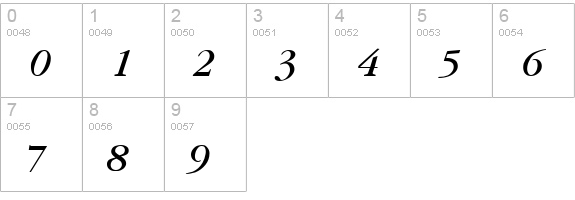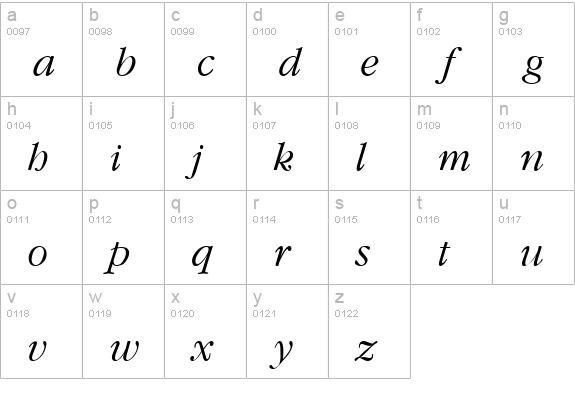
Amethyst Lite Italic Font Details
Amethyst Lite Italic is a distinctive, italic variant in the Amethyst typeface family \xE2\x80\x94 well suited to design and typography projects.
Amethyst Lite Italic font is a stunning typeface that exudes elegance and sophistication. Its delicate italic style adds a touch of refinement to any design project. The flowing curves and graceful lines of this font make it perfect for conveying a sense of modernity and luxury. What's even better is that Amethyst Lite Italic font is available for free download at FontsMarket.com. This means you can easily access this beautiful typeface without any cost and use it in your personal and commercial projects. Don't miss out on the opportunity to enhance your designs with the timeless charm of Amethyst Lite Italic font. Download it today and elevate your creations to the next level of style and sophistication.